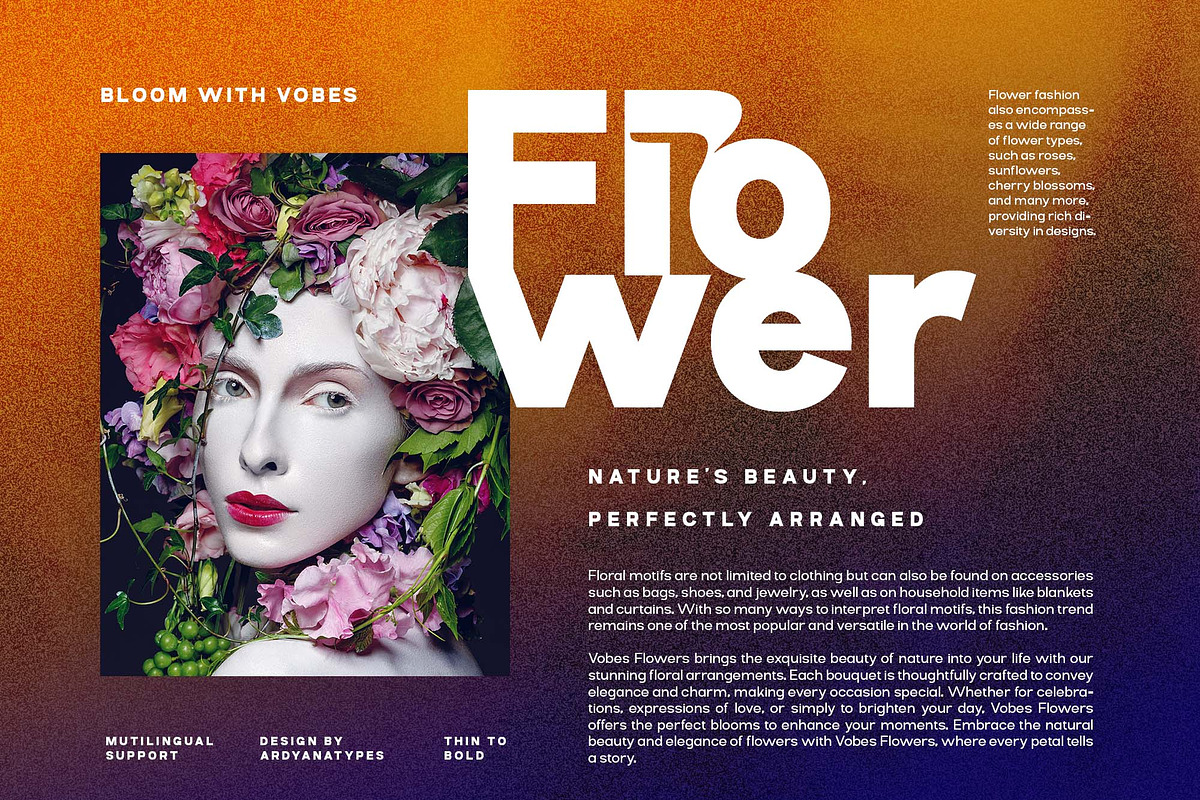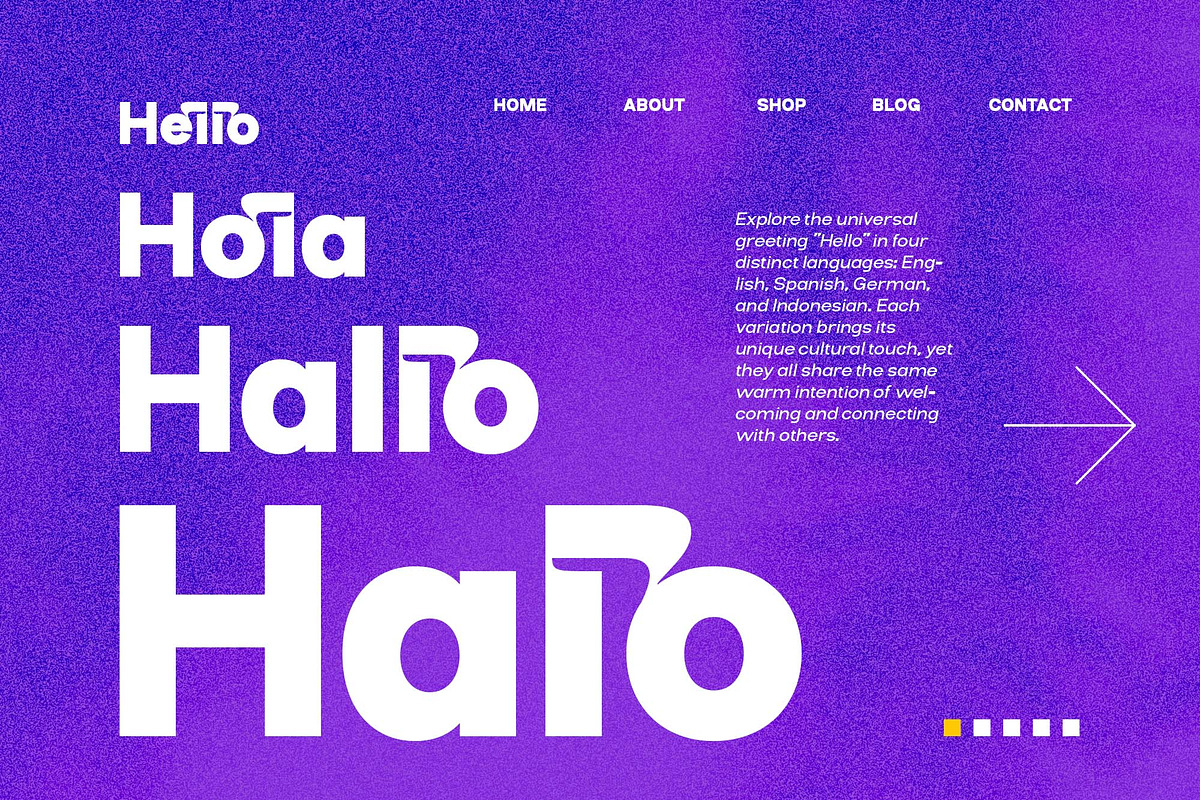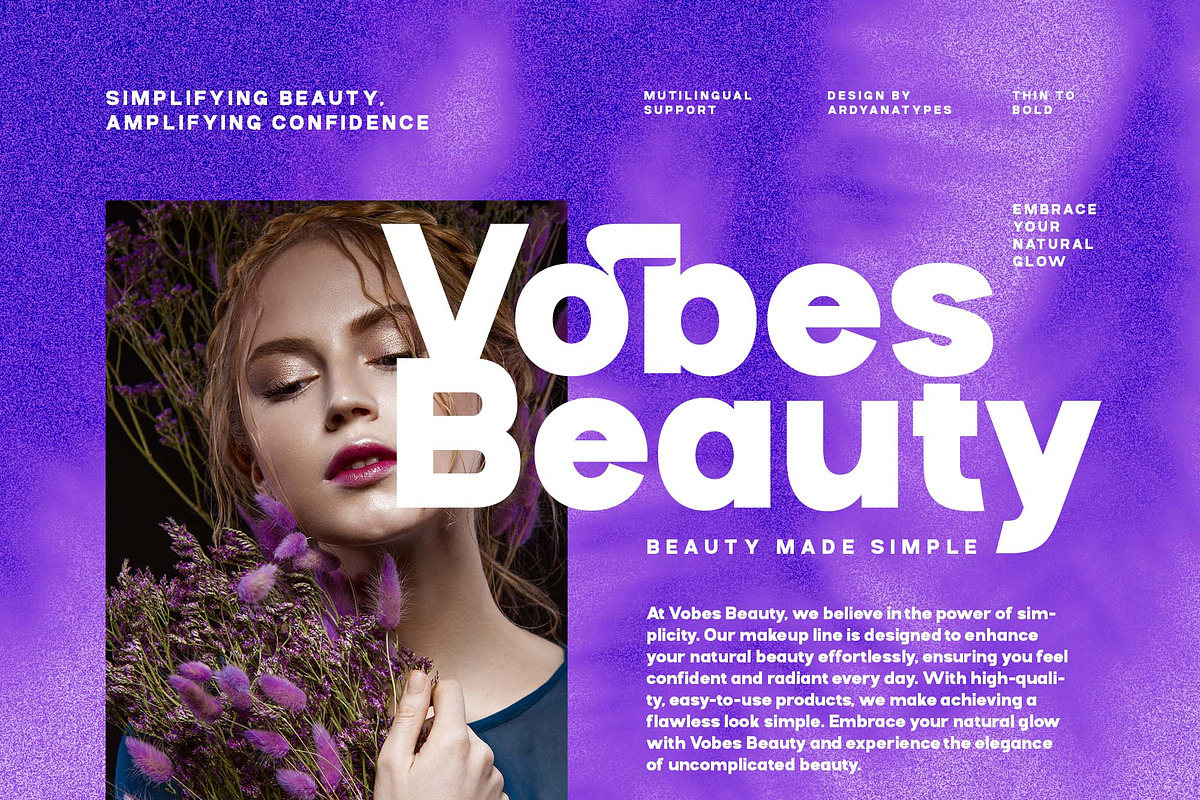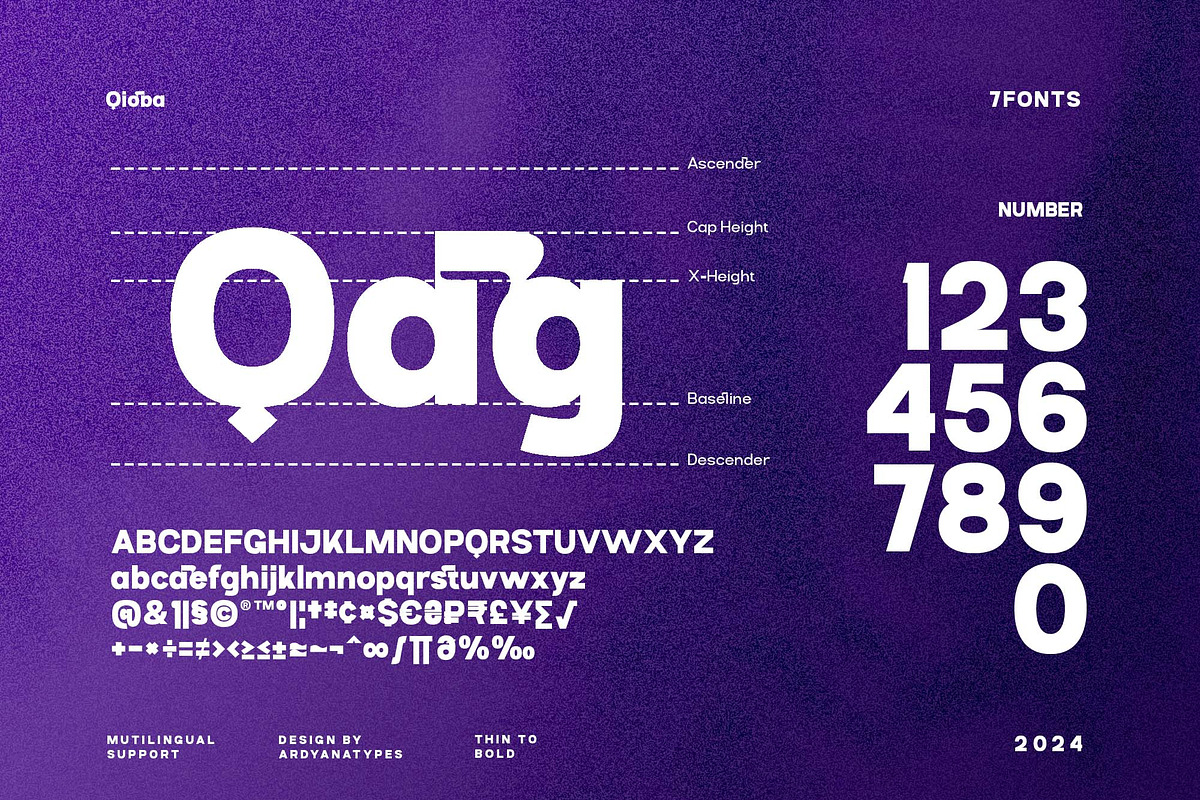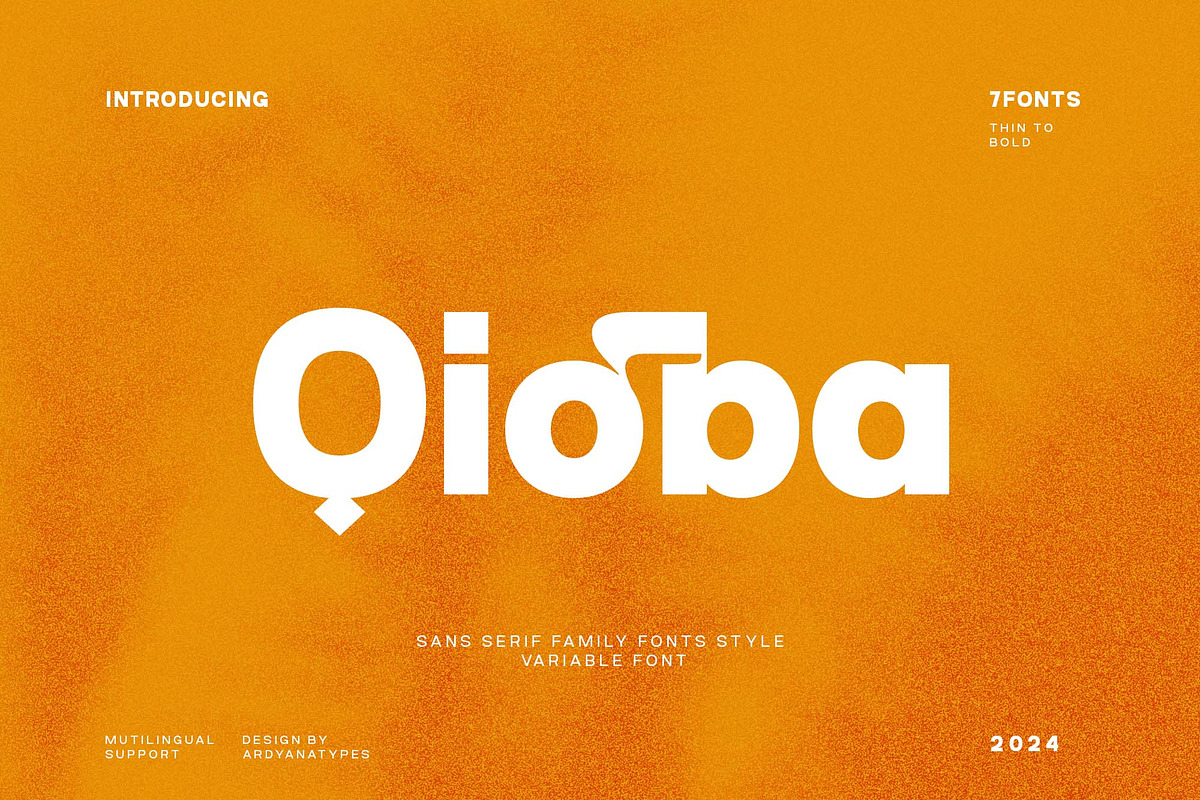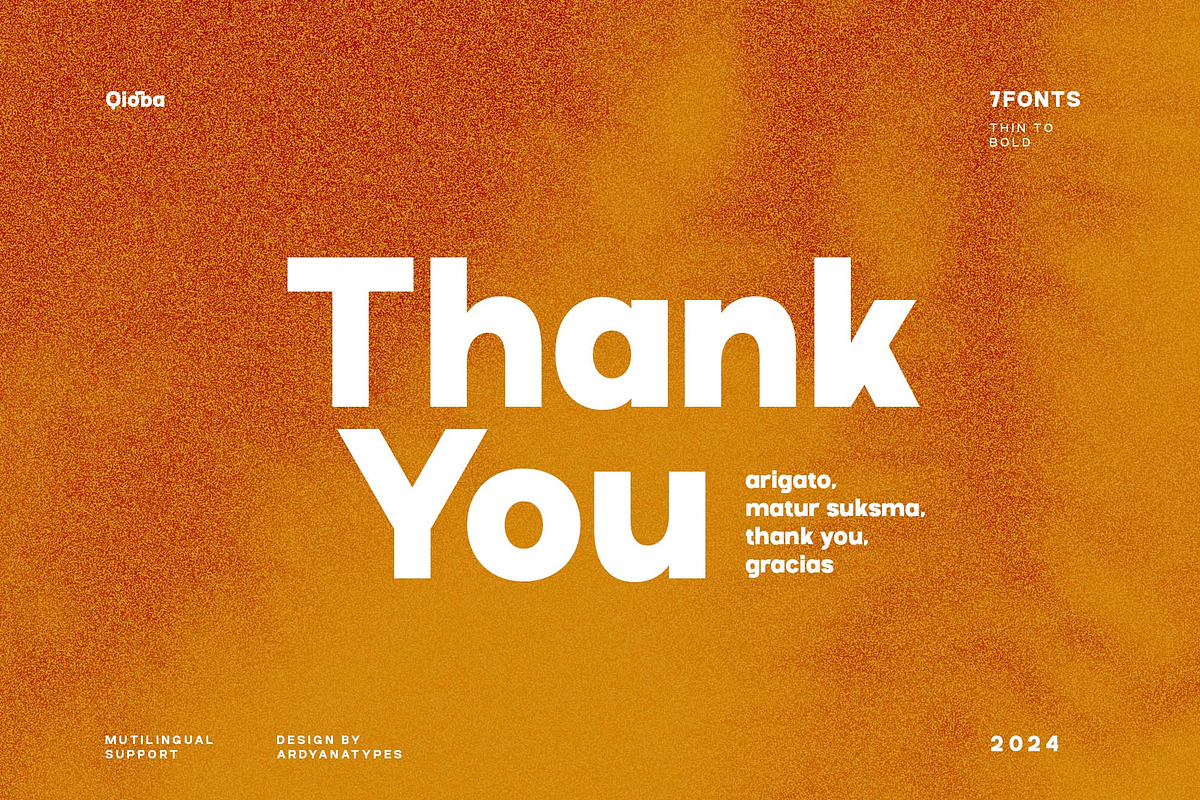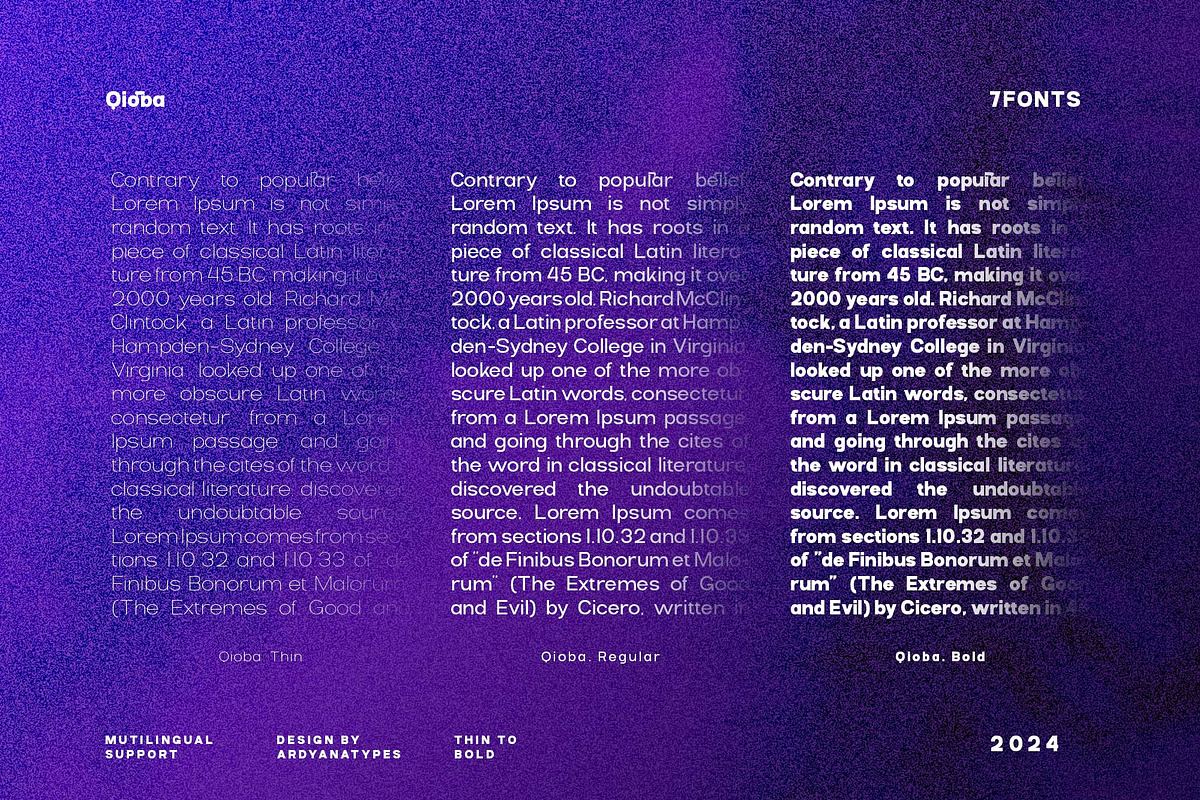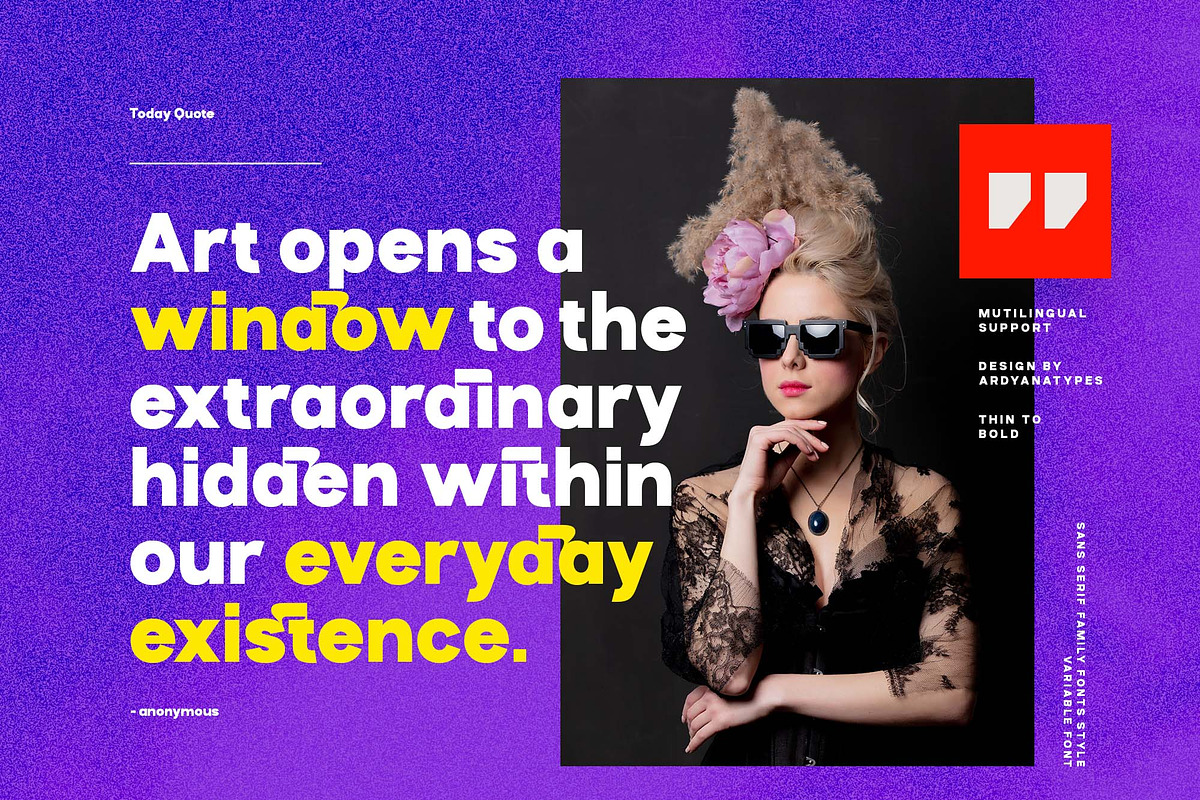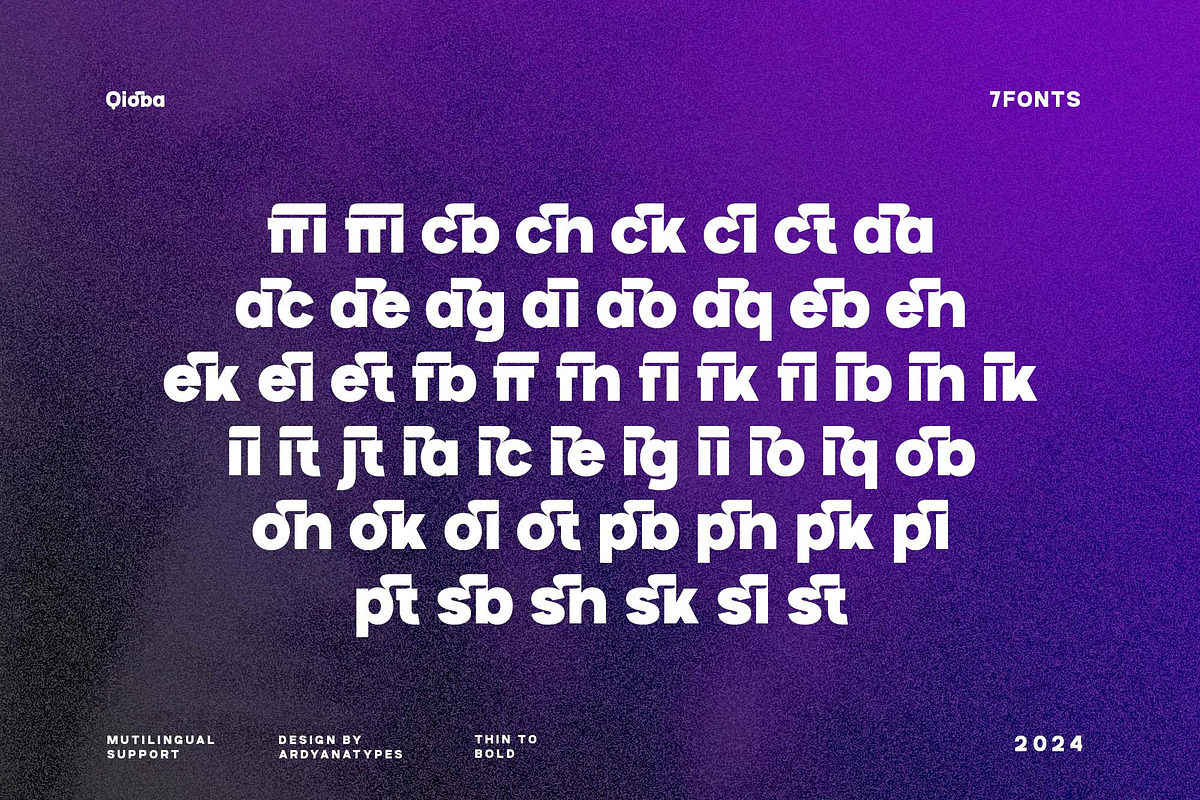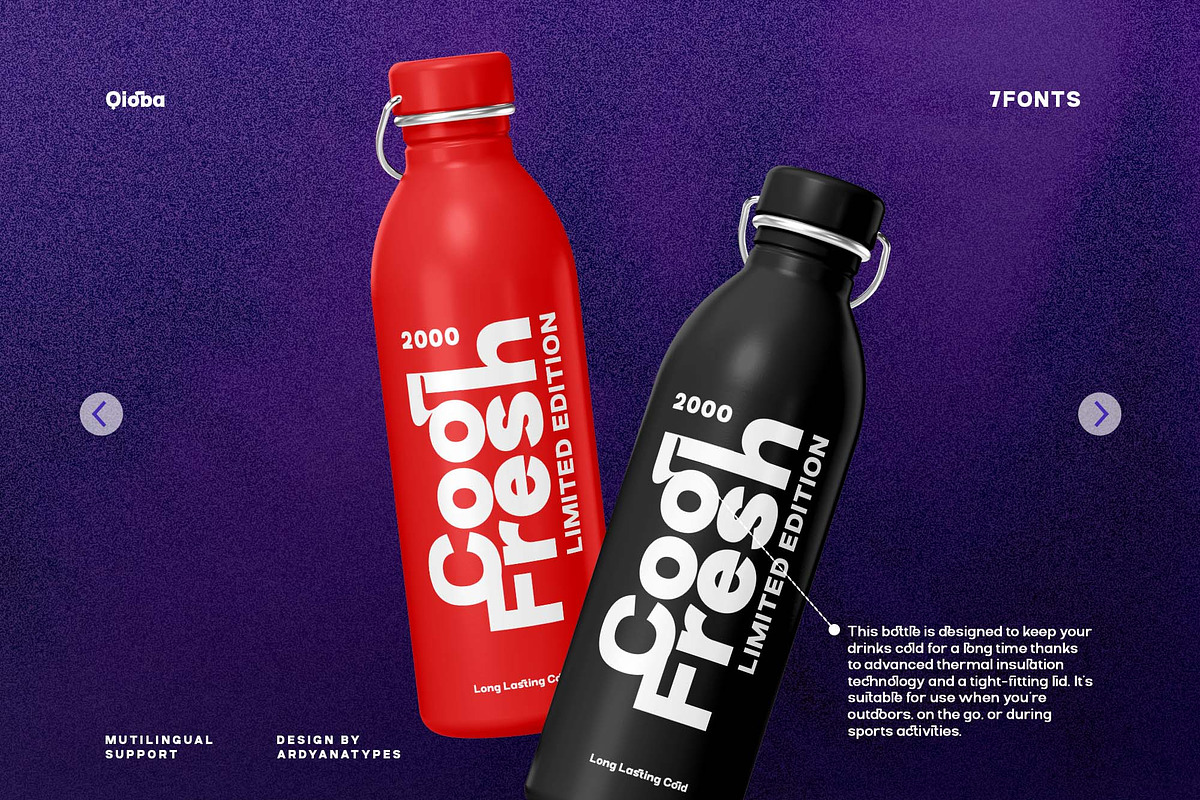
Qioba
Qioba is a unique sans serif font crafted with meticulous attention to detail. This font is designed to provide an attractive and professional look to various design projects. Equipped with OpenType features, Qioba offers numerous variations in each character, allowing for greater flexibility and creativity in its use.
Qioba font also supports multiple languages, making it an ideal choice for various international needs. With its versatile design, Qioba is perfect for use in projects such as branding media, logos, movie posters, books, business cards, and many more.
With Qioba, every design project will stand out and look more professional.